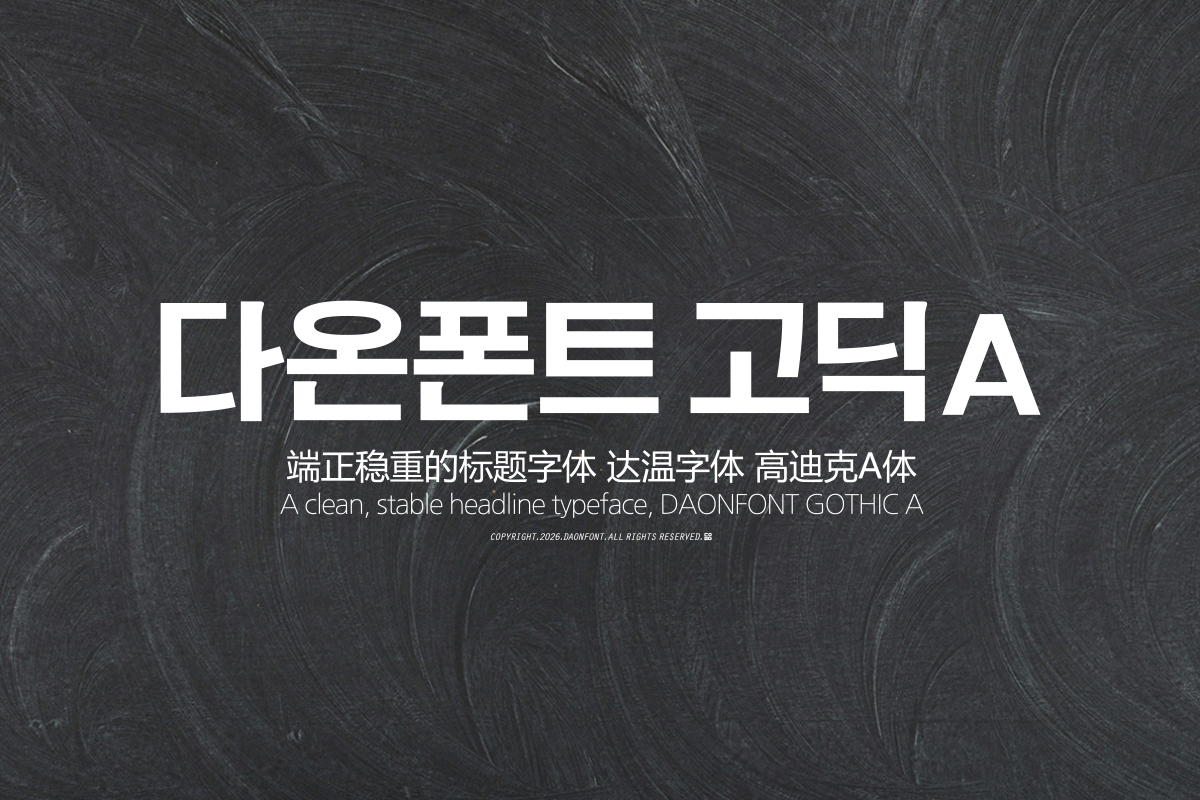
DAON GOTHIC A
'Gothic A' is a sub-headline typeface characterized by slanted serifs and side strokes. It can be used in Hangul design, such as title design or typography.